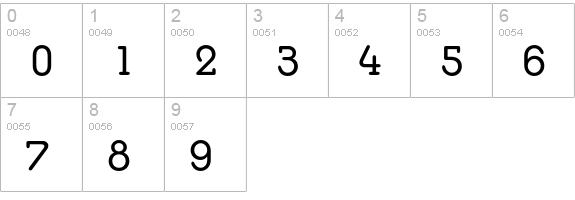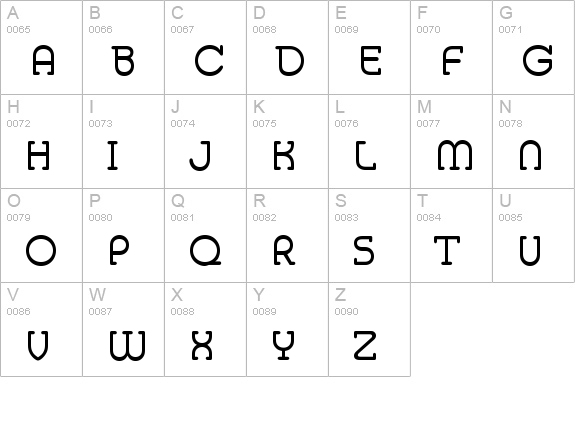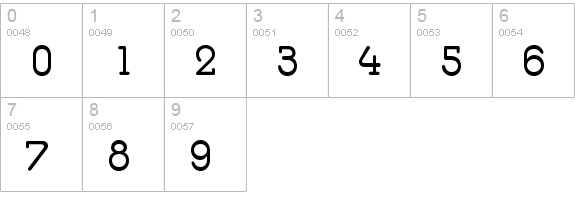
Media-Regular is the standard, neutral variant in the Media typeface family \xE2\x80\x94 well suited to general body text, paragraphs, and standard typographic work.
Discover the timeless elegance and versatility of Media-Regular font, a classic typeface that is perfect for a wide range of design projects. With its clean lines and balanced proportions, Media-Regular exudes a sense of professionalism and sophistication. This versatile font is ideal for both print and digital applications, making it a valuable addition to any designer's toolkit. One of the best features of Media-Regular font is that it is available for free download at FontsMarket.com. This means that you can easily access this high-quality typeface without any cost, allowing you to bring your creative vision to life without breaking the bank. Whether you are working on branding materials, editorial designs, or web graphics, Media-Regular font is sure to elevate your projects with its timeless appeal and readability. Give your designs a touch of class and elegance with Media-Regular font, available for free download at FontsMarket.com. Elevate your typography game and create stunning visuals that stand out from the crowd with this versatile and easy-to-use typeface.